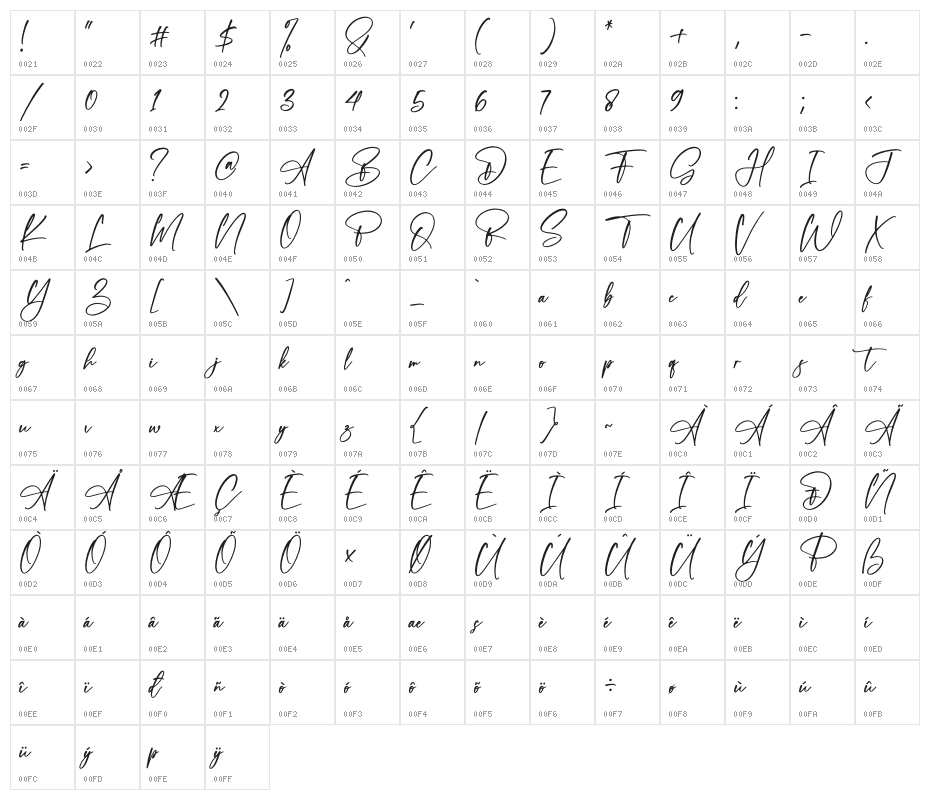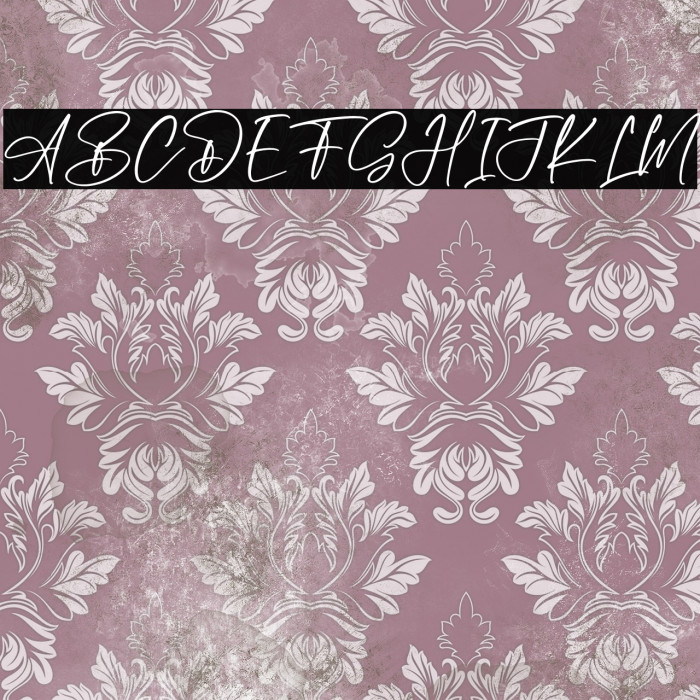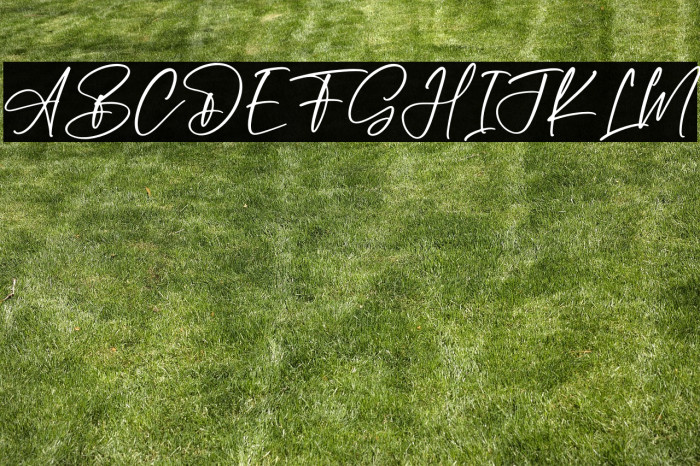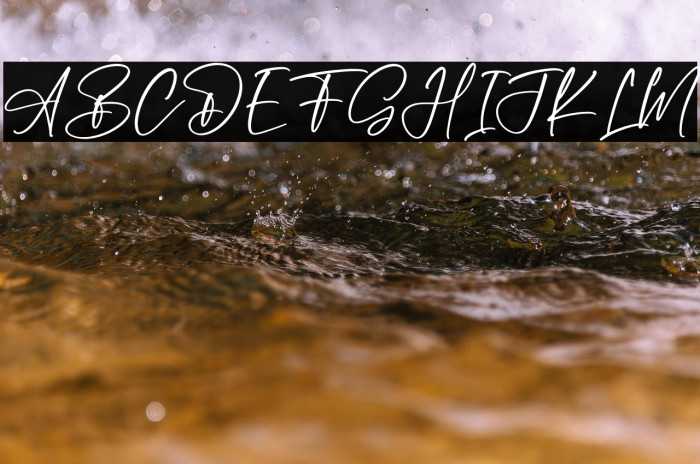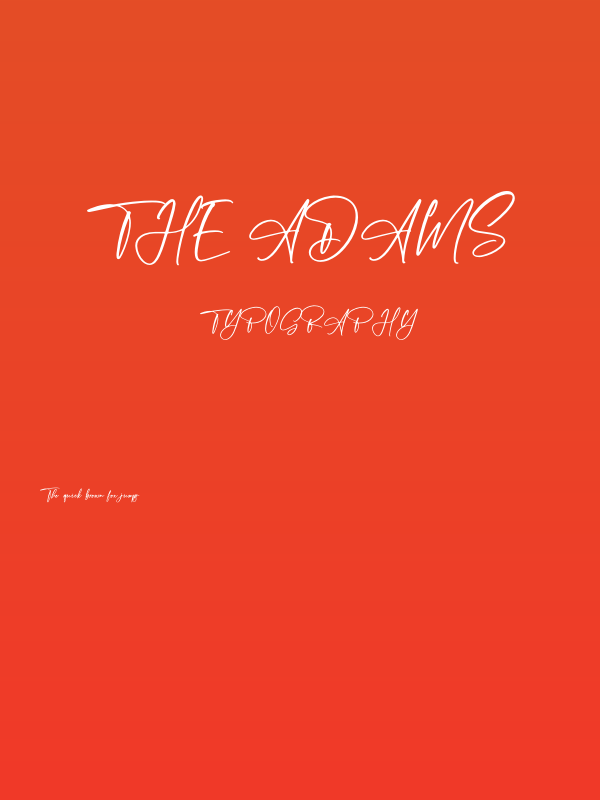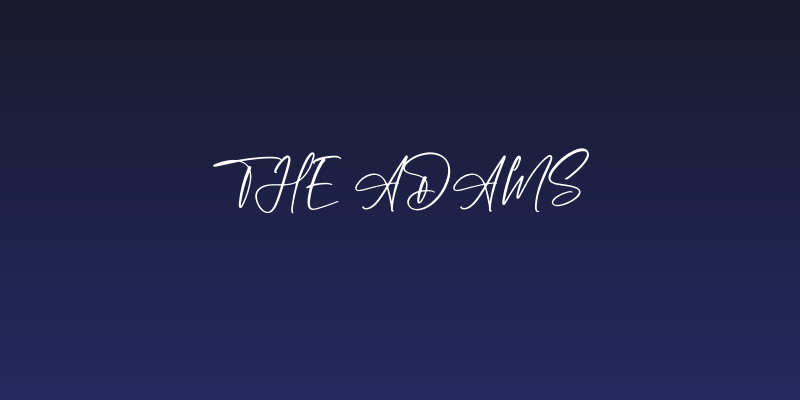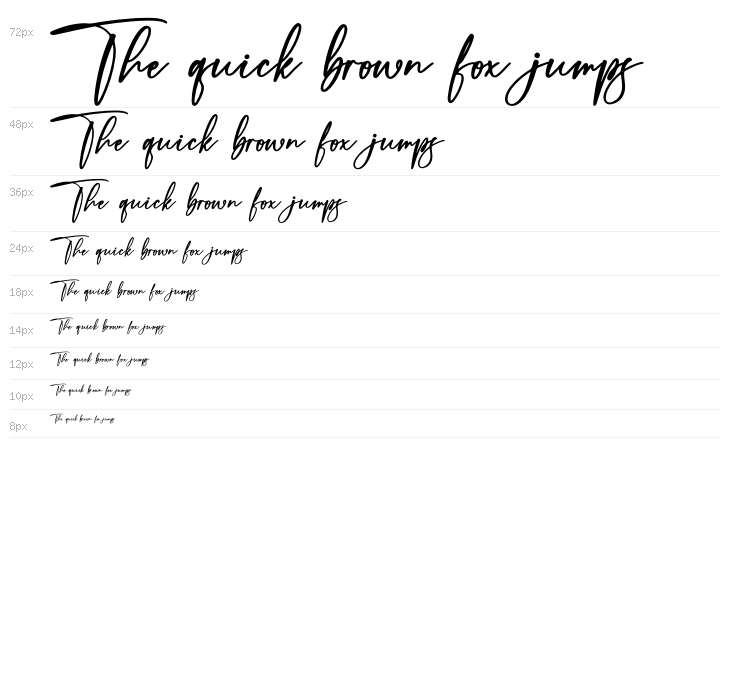
The Adams Font
The Adams Description
A flowing, elegant script font with a handwritten style, featuring smooth curves and a natural, organic feel.
| Use Case | Logos, Invitations, Decorative text |
| Proposed Projects | Wedding invitations, greeting cards, branding. |